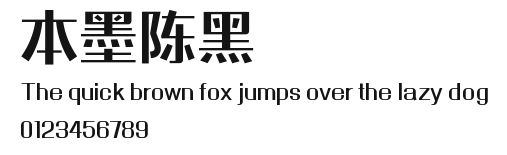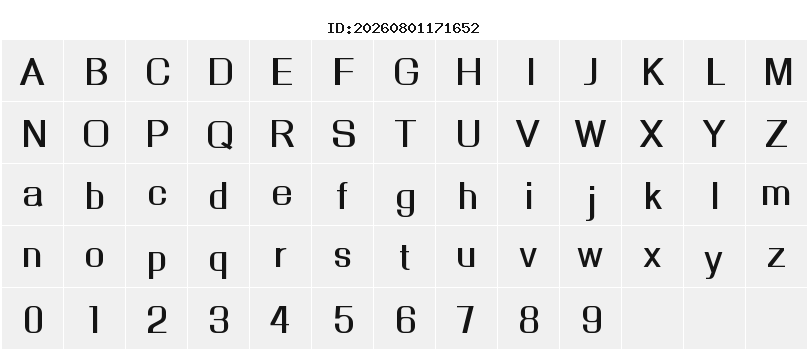
本墨陈黑 Preview
• Font Name: 本墨陈黑
• Font ID: 本墨陈黑
• Full Font Name: 本墨陈黑
• Version: Version 1
• PostScript Name: 本墨陈黑
• Character Count: 7053
• Manufacturer: CYM
About 本墨陈黑.ttf
本墨陈黑.ttf is a modern, elegant sans-serif font designed for ultimate readability and visual harmony. Perfect for branding, headlines, web design, and print materials.